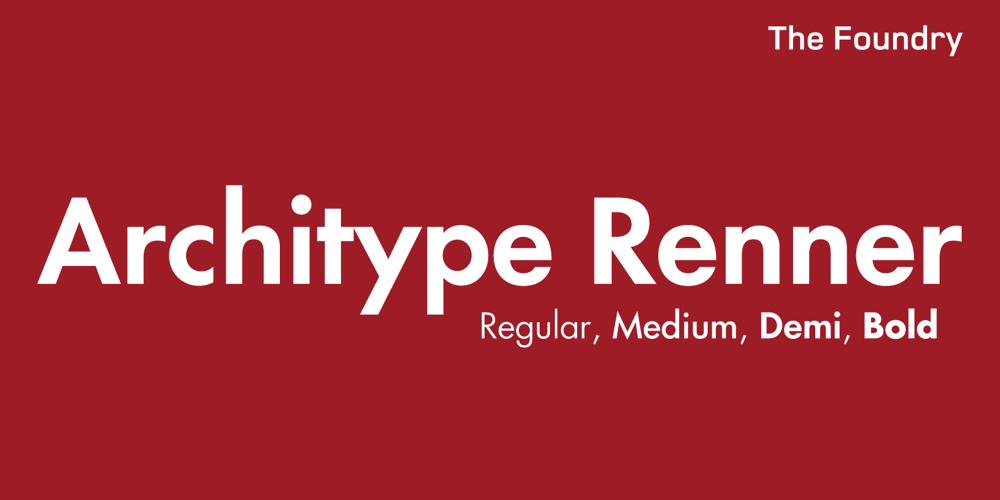
Architype Renner Font Family was designed by published by The Foundry. Architype Renner contains 4 styles and family package options. The geometry of Paul Renner’s sans letterforms was tempered by optical correction to follow earlier typeface proportions, with capitals close to old-style forms, yet still retaining the spirit of the New Typography. His early experimental characters were included as alternatives in the sans which was to become the Futura released by Bauer in 1927–30. Unusually, old style figures also appeared in his early versions but they too were soon discarded. Foundry Architype Renner as a new four weight family has been developed from the original Renner Regular and Bold, created by The Foundry for the first Architype Collections in the early 1990s. This new family features the old style figures and the experimental elements.